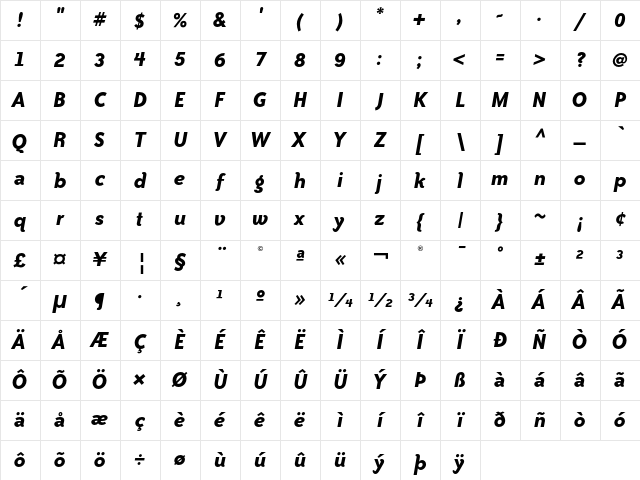
Bailey Sans ITC Bold Italic
Design Context for Bailey Sans ITC
Bailey Sans ITC is a composed and adaptable typeface that performs quietly and consistently across a wide range of design contexts. The slanted form adds forward momentum and visual energy. Its bold stroke weight gives it real presence on the page.
Pro Tip: Use Bailey Sans ITC for emphasis, pull quotes, and subheadings where its slanted energy can add rhythm to the layout.